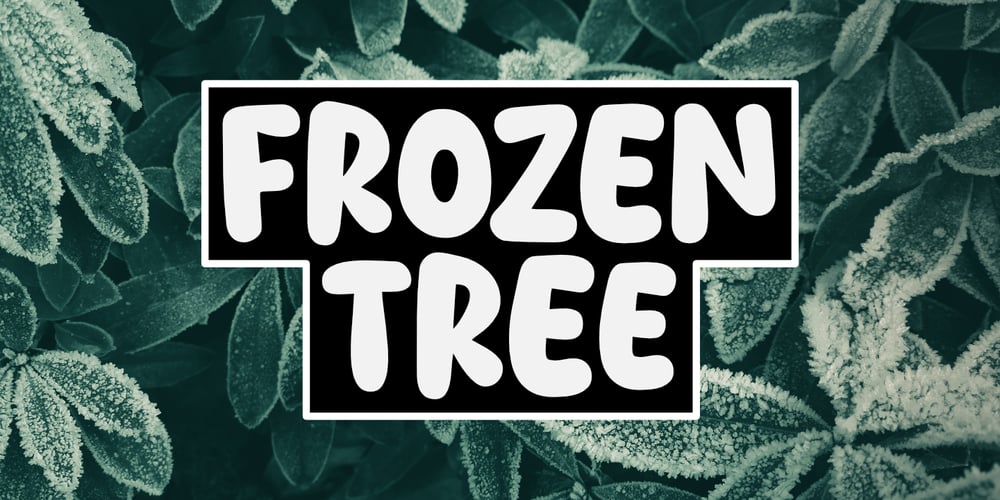
Frozen Tree
Frozen Tree font
Frozen Tree Font Family was designed by Aldy Sidik and published by Epiclinez. Frozen Tree contains 1 styles and family package options. Frozen Tree is a thick lettered yet friendly display font. Whether you are using it for cartoon-related designs, children’s games, quotes, titles, brand names, book covers, posters, or just any creation that requires a touch of joy, this font is a great choice.So what’s included : Basic Latin A-Z & a-z Numbers, symbols, and punctuations Accented Characters : ÀÁÂÃÄÅÆÇÈÉÊËÌÍÎÏÑÒÓÔÕÖØŒŠÙÚÛÜŸÝŽàáâãäåæçèéêëìíîïñòóôõöøœšùúûüýÿžß Thank you